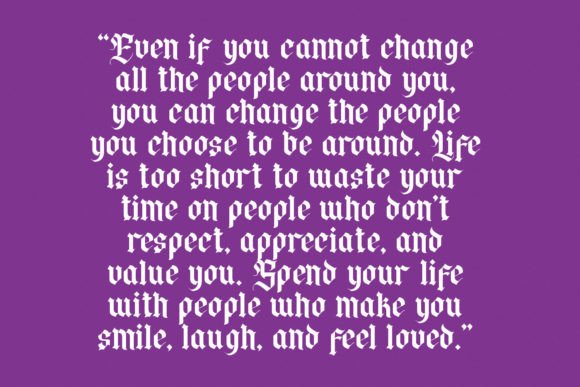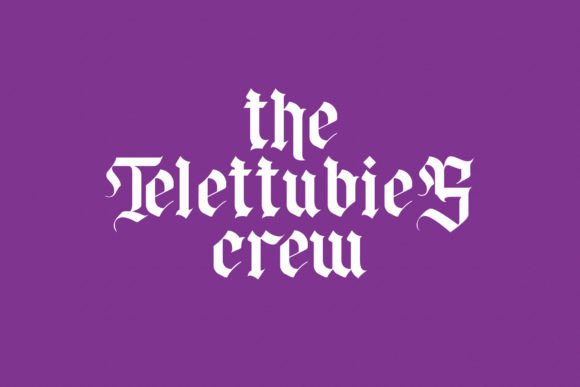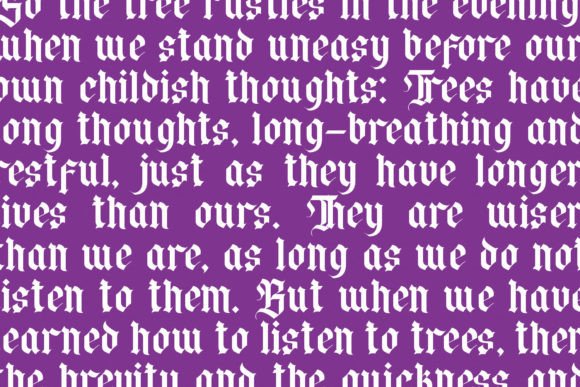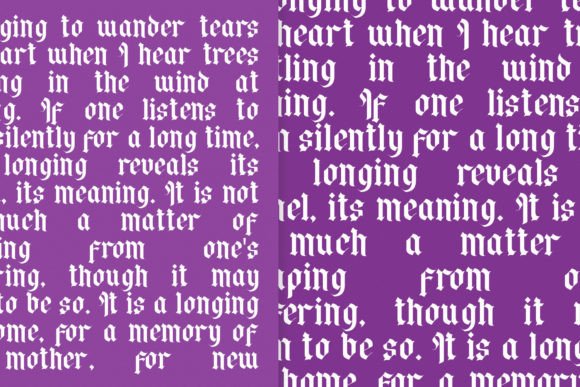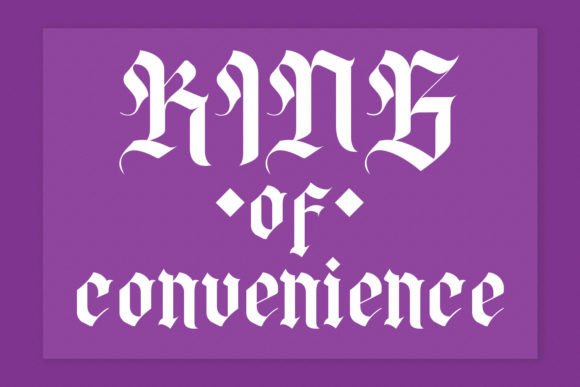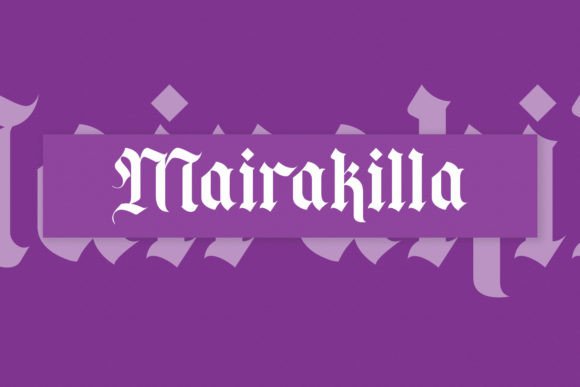
The Franchek Font: A Designer’s New Best Friend
I’ll never forget the time I was working on a logo design project for a client who wanted something bold, elegant, and unique. I had spent hours browsing through font libraries, but nothing seemed quite right. That was when I stumbled upon the Franchek font. With its flourish fancy blackletter style and medium-high contrast strokes, I knew I had found the perfect fit. In this article, I’ll share my experience with the Franchek font, its features, and how to make the most of it in your designs.
- ✨ Unique and elegant design: The Franchek font has a distinctive blackletter style with beautiful swashes and flourishes.
- ✅ High versatility: It works well for both short and long texts, making it perfect for logos, social media posts, movie titles, book titles, and more.
- 💡 OpenType features: The font comes with a range of OpenType features, including ligatures, alternates, and stylistic sets, giving you plenty of creative options.
While the Franchek font is amazing, there are a few things to keep in mind:
- ⚠️ Legibility at small sizes: Due to its intricate design, the font may not be legible at very small sizes. It’s best used at larger sizes or for headlines.
- 🤔 Pairing with other fonts: As with any decorative font, pairing Franchek with a sans-serif or serif font can be a bit tricky. Experiment with different combinations to find the perfect match.
The Story Behind Franchek
The Franchek font was designed by a team of typographers who wanted to create a unique, elegant font that would stand out in any design. Inspired by traditional blackletter fonts, they added modern touches and flourishes to create a truly distinctive font. The result is a font that’s both bold and beautiful, perfect for designers who want to make a statement.
Q: What is the Franchek font best used for?
A: The Franchek font is versatile and can be used for a range of design projects, including logos, social media posts, movie titles, book titles, and more.
Q: Is Franchek a difficult font to read?
A: While the Franchek font has intricate details, it’s generally easy to read at larger sizes. However, it may not be suitable for very small text or body copy.
Q: Can I use Franchek with other fonts?
A: Yes, the Franchek font can be paired with other fonts to create a unique look. Experiment with different combinations to find the perfect match for your design.
With its elegant design, versatility, and OpenType features, the Franchek font is a great addition to any designer’s toolkit. Whether you’re working on a logo, social media post, or book title, Franchek is sure to make your design stand out.